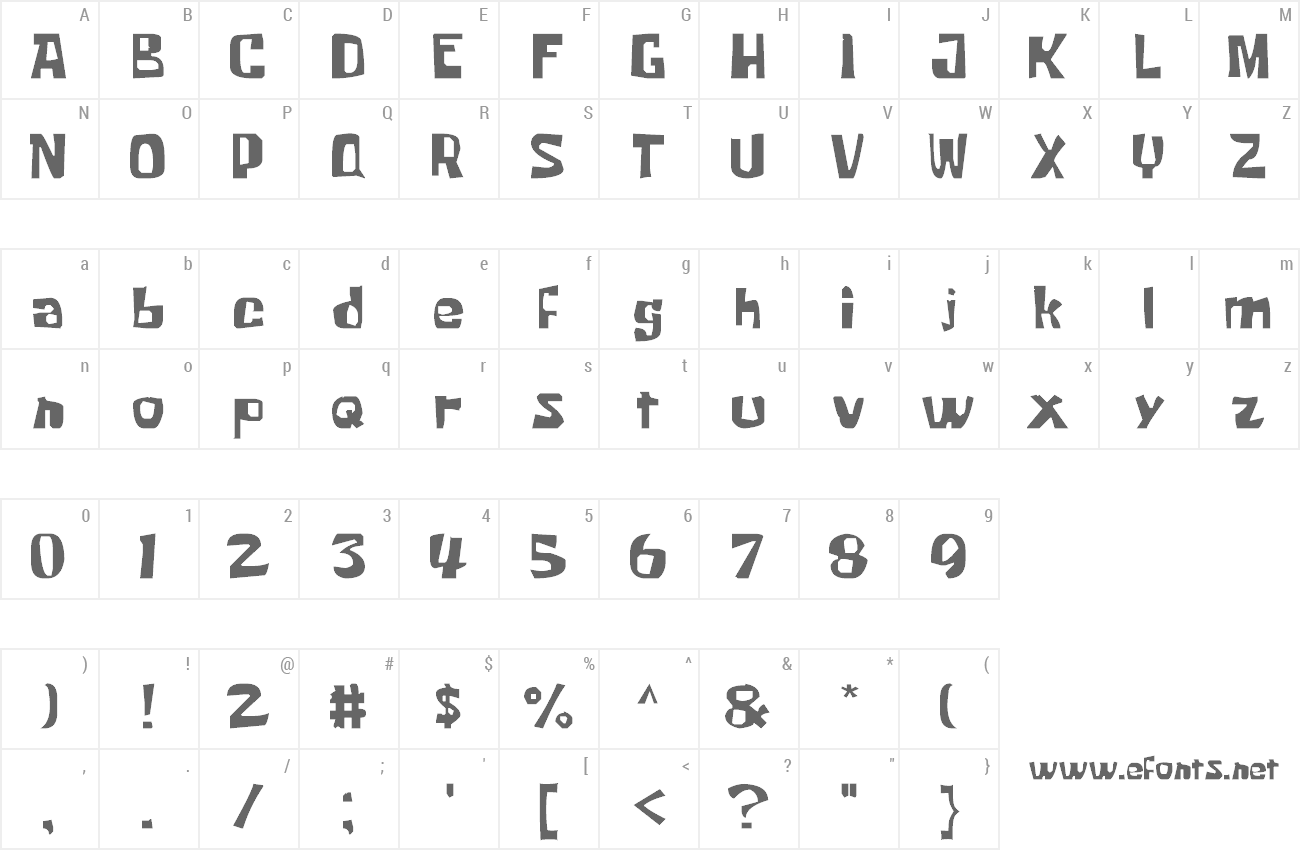
| Font name: | Krabby Patty |
| Author: | pslehisl |
| Note by pslehisl | |
Krabby Patty is a recreation of the font used on SpongeBob SquarePants. It was made using the graphics from the "Operation Krabby Patty" PC game. Please note that I am not a professional font designer and I made this font a long time ago, so as a result, this font - does not look so great at high resolutions. The glyphs are based off of low-res bitmap images and all I did was apply auto-tracing to them. - only contains basic English characters and punctuation. If you're looking for a font that looks great at all sizes and supports many characters, I recommend "Some Time Later". It's hand-traced from many different title cards and supports over 20 languages which makes it a pretty accurate general representation of the original font style. "Spongeboy Me Bob" is another great alternative. It's more of a direct conversion than a recreation so it might look more "official". It contains less characters though (about the same as mine) and has a somewhat varied baseline - which you might like since the original font has that wavering characteristic to it. Questions/comments? Email me at pslehisl@gmail.com |